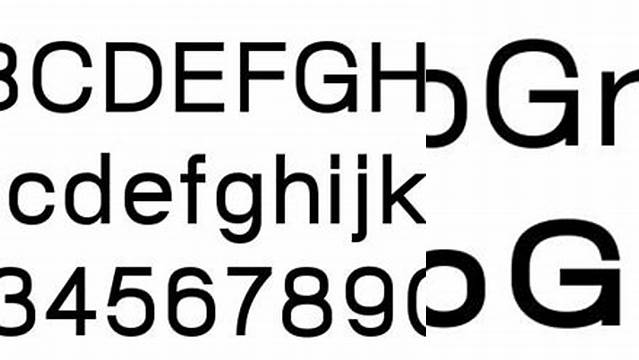
Hey everyone! 👋 Let's dive into the world of fonts, specifically the awesome Neogram Bold font and how you can snag it for free! Finding the right font can seriously level up your designs, whether you're working on a cool poster, a slick website, or just spicing up your documents. So, let's get started on your journey to get the Neogram Bold font! Ready? Let's roll!
Neogram Bold: What's the Buzz About?
Alright, first things first: what is Neogram Bold? Think of it as a modern, clean, and super readable typeface. It's got that solid, confident look that works great for headlines, titles, and anywhere you want your text to pop. Because Neogram Bold font gives a strong, professional vibe and is very versatile! The font is designed with strong character, and this is the reason why Neogram Bold font is popular among designers. That's why, you want to use Neogram Bold for your design.
Now, why is it a big deal? Well, good fonts are crucial. They set the tone for your project. If you're going for a modern feel, Neogram Bold is spot on. It's easy on the eyes, which is essential for readability, and it packs a punch. Plus, it's a great alternative to those fonts that everyone uses. If you use the Neogram Bold font, you design will be unique and different. The Neogram Bold font makes your design stand out from the crowd. Having the Neogram Bold font makes your design more memorable.
This is a great font for creating designs for your brand. Because the Neogram Bold font is versatile. If you want to create content for your brand, you can use this font for your design and content. Using the Neogram Bold font in your design will make your brand have a strong impression. This is very helpful for you as a designer.
The Characteristics of Neogram Bold
Let's explore the characteristics of the Neogram Bold font! This font is characterized by its distinct style and design. The Neogram Bold font typically features thick, strong strokes that contribute to its bold appearance. The font style has a very strong character in its design. Because this is a bold font, your design will look powerful! The design of Neogram Bold is very easy to read. The easy to read feature is very useful for designing any kind of content. People will easily remember your design because it is easy to read.
The clean and modern appearance of this font makes it perfect for various purposes. The versatility is something that makes it popular among designers. This font is suitable for both digital and print media. The impact that Neogram Bold has on your design is undeniably positive. This is something to take into account when deciding on your font selection for a project. Because the Neogram Bold font has a bold effect, it provides emphasis. This font has very good readability. So, it makes people able to easily read and understand it.